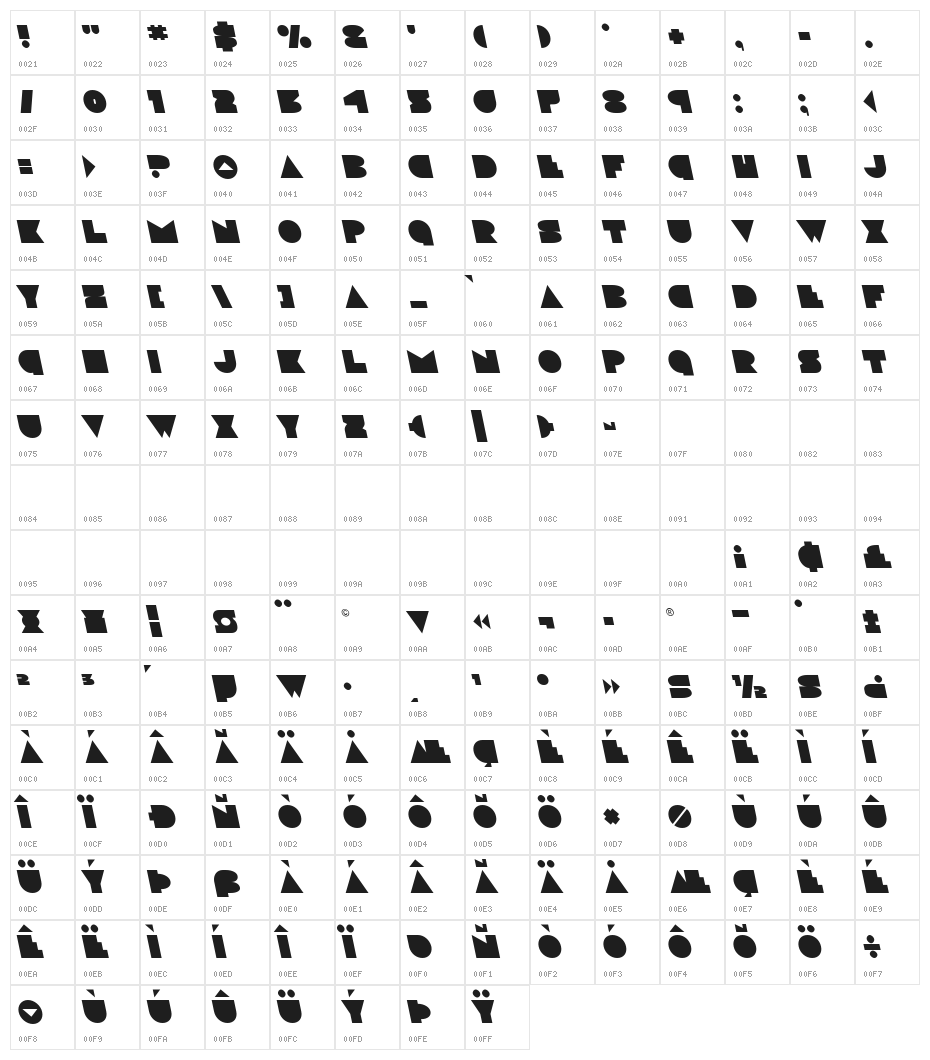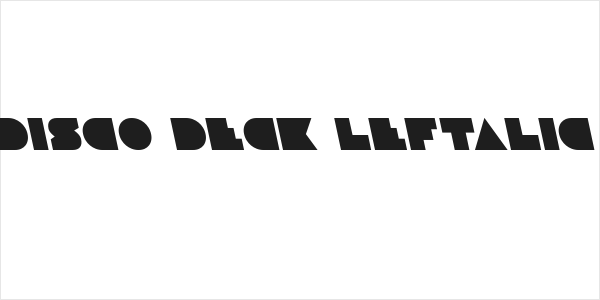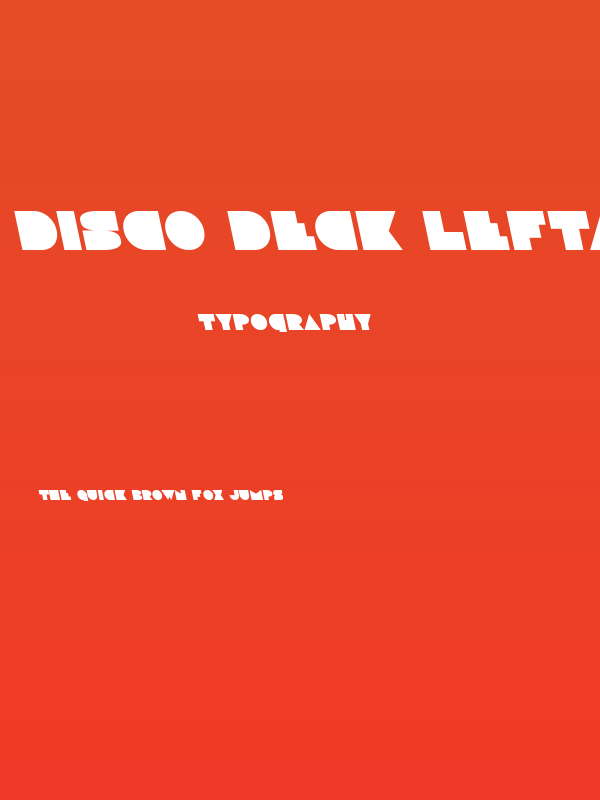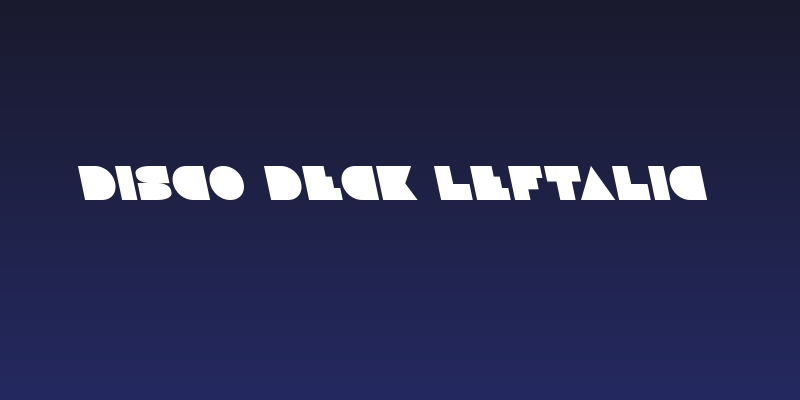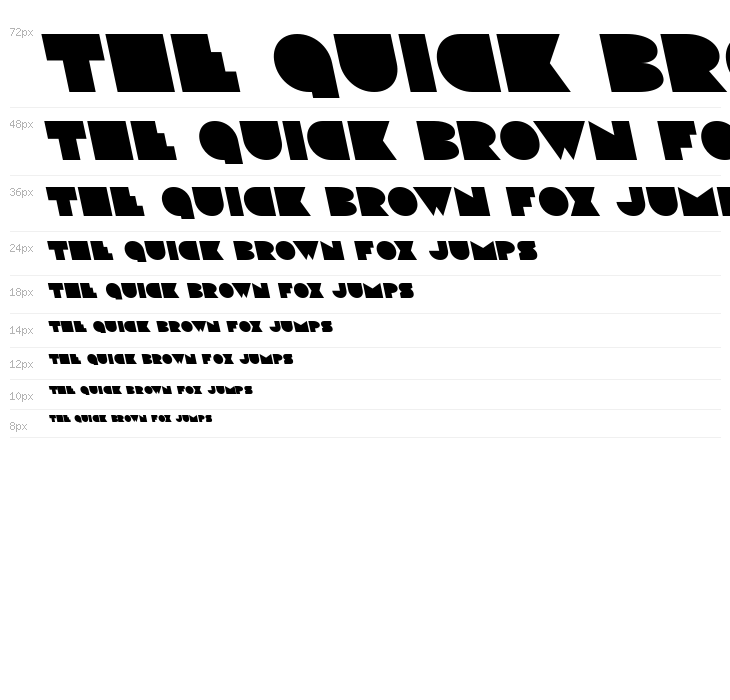
Disco Deck Leftalic Font
Disco Deck Leftalic Description
This font features a bold, geometric style with a distinctively modern and playful appearance. The characters are constructed with sharp angles and curves, creating a dynamic and energetic look. The uppercase and lowercase letters maintain a consistent design, emphasizing boldness and creativity. The numbers and special characters follow the same geometric theme, ensuring uniformity across all glyphs. This font's unique style makes it suitable for eye-catching designs and projects that require a strong visual impact.
| Proposed Projects | Ideal for posters, album covers, event flyers, and branding that seeks a bold and modern aesthetic. |